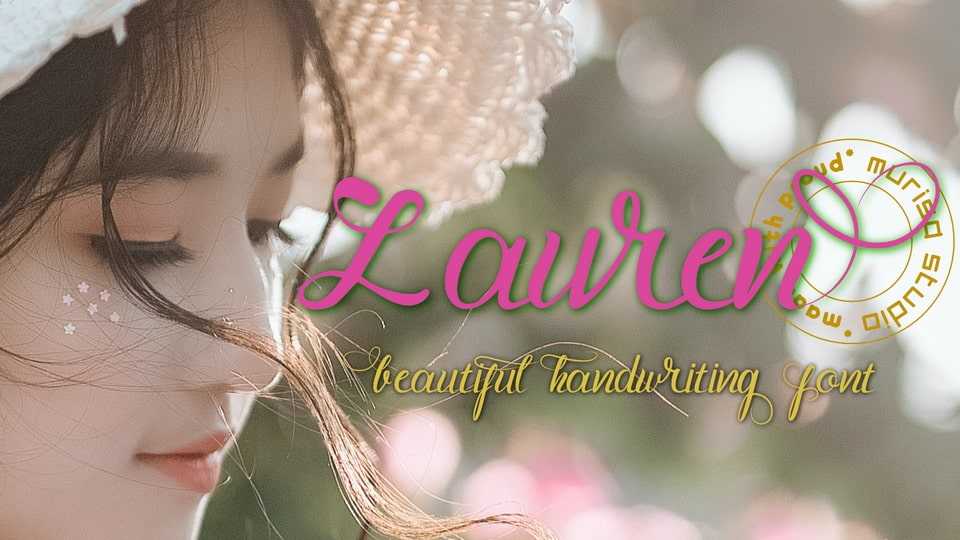
Download Lauren font, a beautiful and refined script typeface. Lauren font has a classy, elegant and modern look that can be used for logos, branding, invitations, stationery, wedding designs, social media posts, and much more